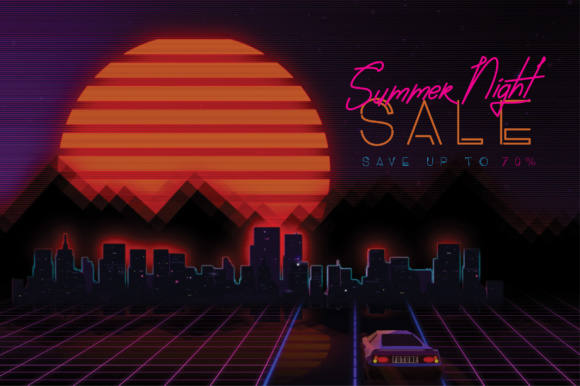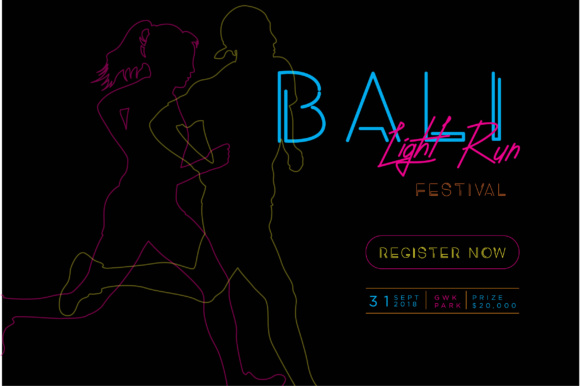
Neon Absolute Duo Font
db-ku.com - Script & Handwritten -- Neon Absolute is a classy, contemporary pair of script and sans fonts, inspired by the 1980’s and neon lights.